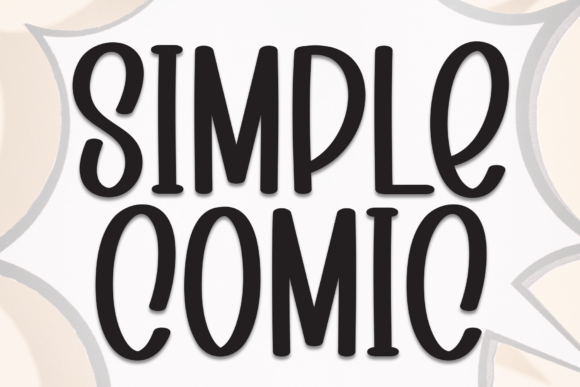
Introducing Simple Comic Font: The Sweet and Friendly Handwritten Font
The world of typography is vast and diverse, with numerous font styles to choose from, each with its unique characteristics and uses. Among these, handwritten fonts hold a special place in the hearts of designers and readers alike, as they bring a personal touch and warmth to any design project. One such font that has gained popularity for its sweet and friendly appeal is the Simple Comic Font. In this article, we’ll delve into the features, benefits, and creative applications of Simple Comic Font, exploring why it has become a favorite among designers.
What is Simple Comic Font?
Simple Comic is a sweet and friendly handwritten font, crafted to bring a touch of warmth and personality to design projects. Its natural and unique style makes it incredibly fitting to a large pool of designs, limited only by one’s imagination. Whether you’re working on a children’s book, a greeting card, a poster, or any digital content, Simple Comic Font is versatile enough to complement a wide range of themes and styles.
Key Features of Simple Comic Font
• Handwritten Style: Simple Comic boasts a genuine handwritten look, making it perfect for projects that require a personal touch.
• Versatility: Its unique yet adaptable design allows it to be used across various platforms and design types, from print to digital media.
• Readability: Despite its playful nature, Simple Comic maintains a high level of readability, ensuring that messages are conveyed clearly and effectively.
• Emotional Connection: The font’s friendly and approachable vibe helps create an emotional connection with the audience, making it ideal for projects aimed at younger audiences or those seeking a more casual tone.
Benefits of Using Simple Comic Font
The advantages of incorporating Simple Comic Font into your design projects are numerous. Here are some of the key benefits:
• Uniqueness: In a sea of standard fonts, Simple Comic offers a distinctive look that can make your project stand out.
• Time-Saving: Being a pre-designed font, it saves you the time and effort that would go into creating a handwritten font from scratch.
• Professional Finish: Despite its handmade appearance, Simple Comic gives your project a polished and professional finish, suitable for both personal and commercial use.
• Cost-Effective: Investing in a quality font like Simple Comic can be more cost-effective than commissioning custom font design, which can be expensive.
Creative Applications of Simple Comic Font
The versatility of Simple Comic Font is one of its most appealing qualities. Here are some creative ways to use this font in your projects:
• Children’s Books and Educational Materials: Its playful and engaging style makes it perfect for storybooks, textbooks, and learning materials aimed at children.
• Posters and Flyers: For events, promotions, or informational campaigns targeting a younger audience or seeking a friendly tone, Simple Comic is an excellent choice.
• Digital Content: Enhance your blog posts, social media graphics, and website content with a font that adds a personal and approachable feel.
• Greeting Cards and Invitations: Add a warm and personal touch to your cards and invitations, making them more special and engaging.
Tips for Using Simple Comic Font Effectively
To maximize the impact of Simple Comic Font in your designs, consider the following tips:
• Pair with Complementary Fonts: Use Simple Comic as a headline font and pair it with a clean, sans-serif font for body text to create visual hierarchy and contrast.
• Adjust Size and Color: Experiment with different sizes and colors to emphasize certain words or phrases, adding depth and interest to your design.
• Consider the Audience: Ensure that the playful nature of Simple Comic aligns with your target audience and the project’s overall tone.
• Maintain Readability: While it’s tempting to use decorative elements, prioritize readability to ensure your message is easily understood.
Simple Comic Font is a versatile and charming handwritten font that can elevate a wide range of design projects. Its unique blend of friendliness, readability, and professionalism makes it an invaluable tool for designers looking to add a personal touch to their work. Whether you’re creating educational materials, promotional posters, or digital content, Simple Comic Font offers a fresh and engaging aesthetic that can help your project stand out. By incorporating this sweet and friendly font into your designs, you’re sure to capture the attention and hearts of your audience.